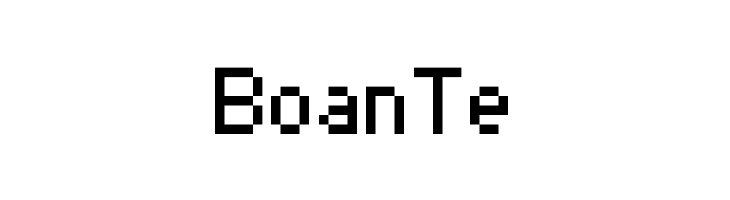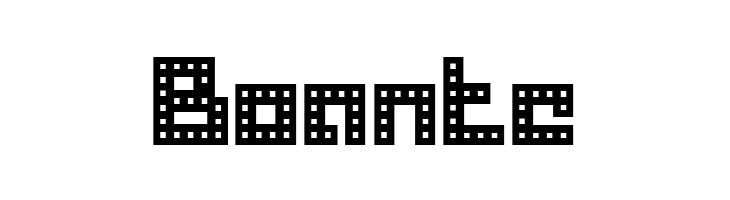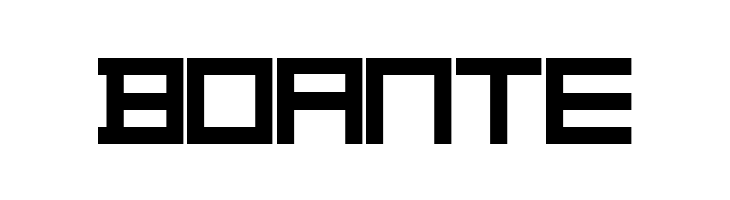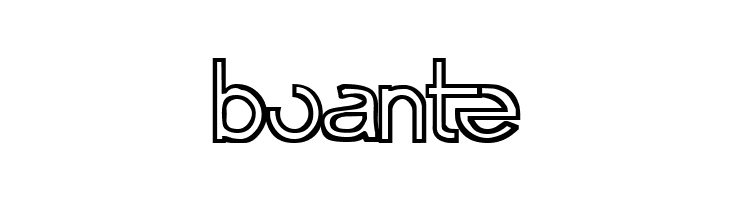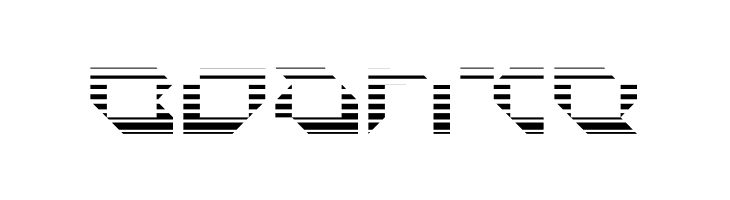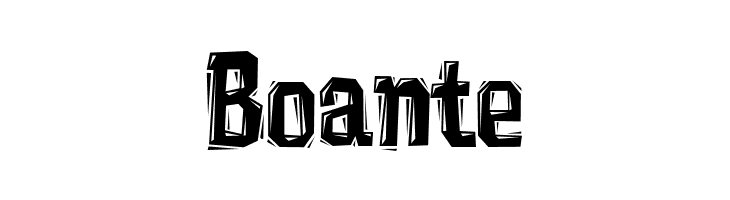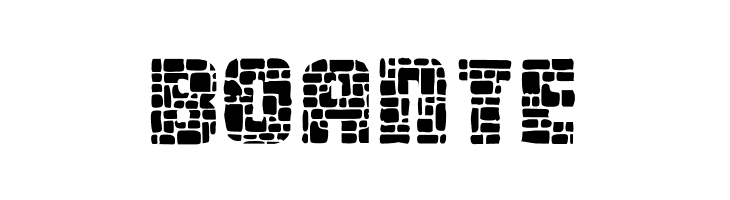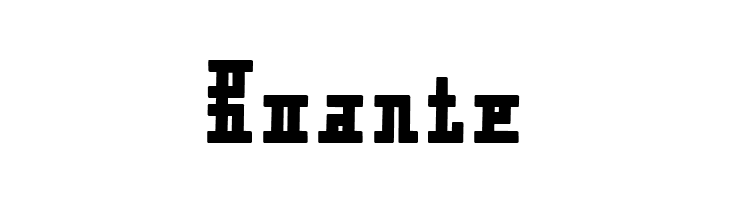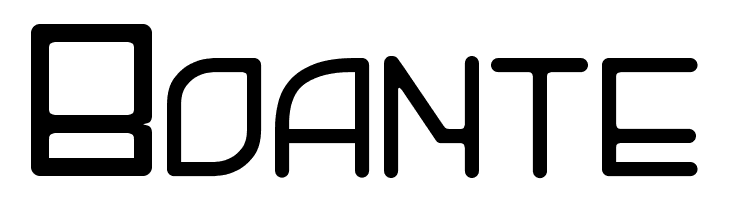
A playful, dotted font with a pixelated, retro style.
A bold, blocky font with a filled stone-like pattern, perfect for impactful designs.
A bold, geometric font with a futuristic and modern design.
A bold, futuristic font with a robotic and geometric design.
A bold, geometric font with a futuristic, robotic aesthetic.
An intricate, entangled font with geometric, maze-like patterns.
A bold, 3D geometric font with a strong, architectural style.
A futuristic, geometric font with angular and linear design elements.
A pixelated, geometric font inspired by retro digital displays.
A bold, geometric font with angular shapes and circular elements, offering a modern and assertive style.
A bold, geometric font with art deco influences, perfect for stylish and modern designs.
A bold, futuristic font with angular, geometric letterforms.
A futuristic, angular, and bold italic font with a mechanical design.
A bold, modern font with a futuristic and geometric design.
A futuristic, geometric font with sharp angles and a digital aesthetic.
A bold, pixelated font with a retro, digital aesthetic.